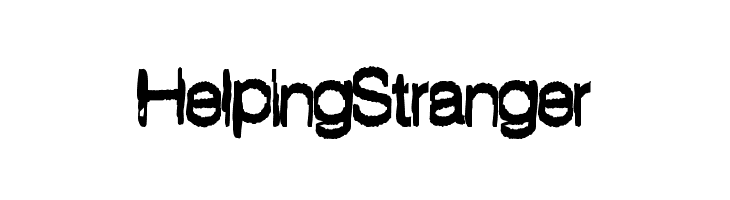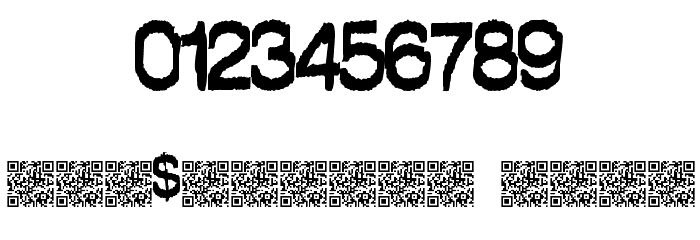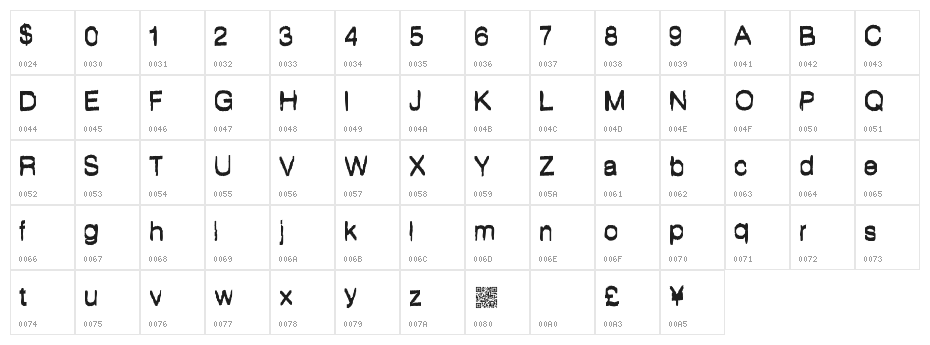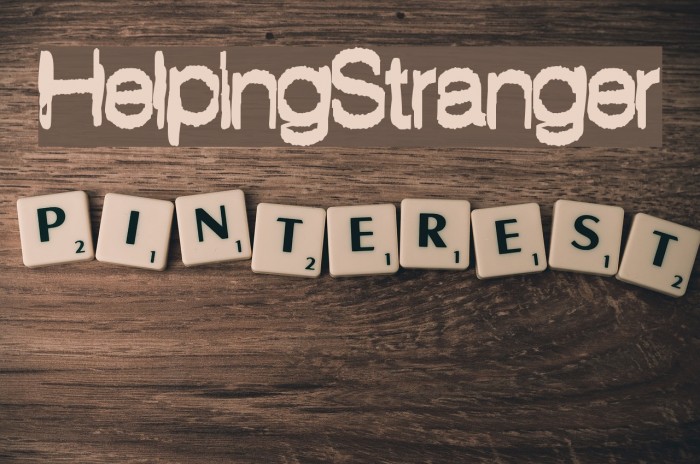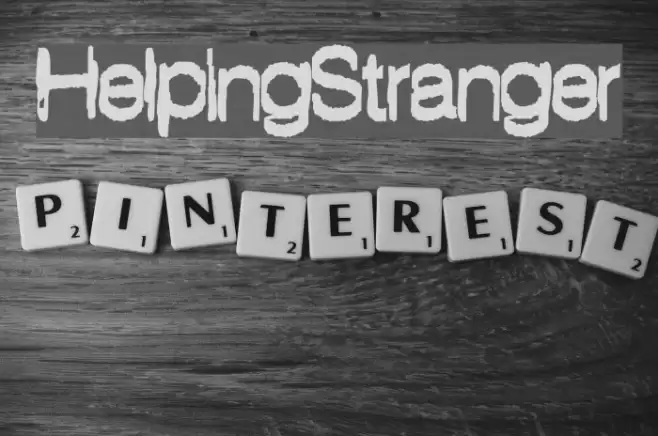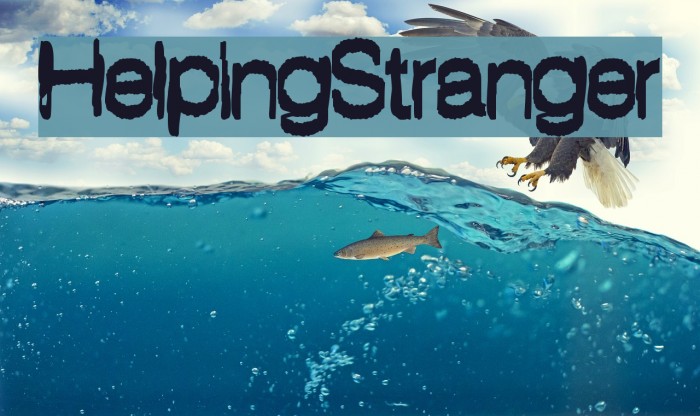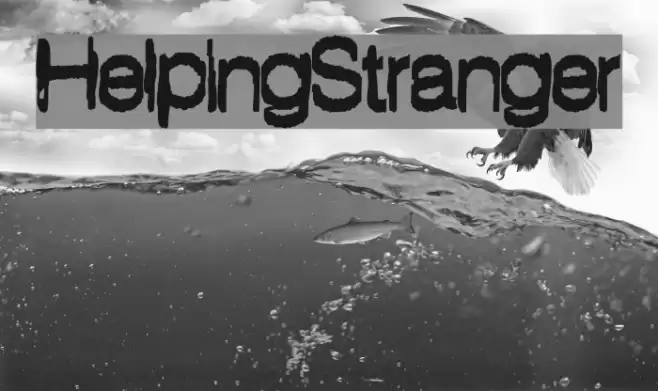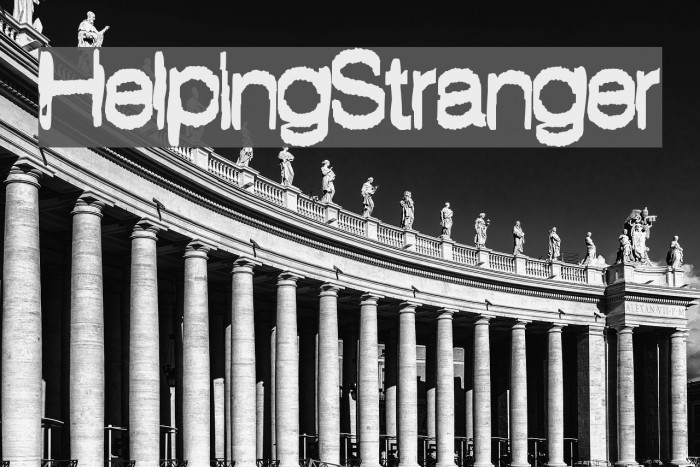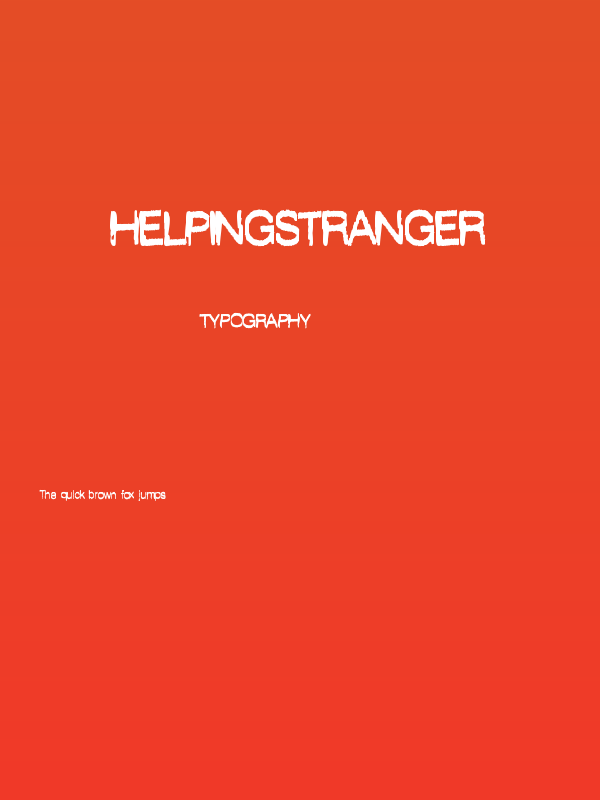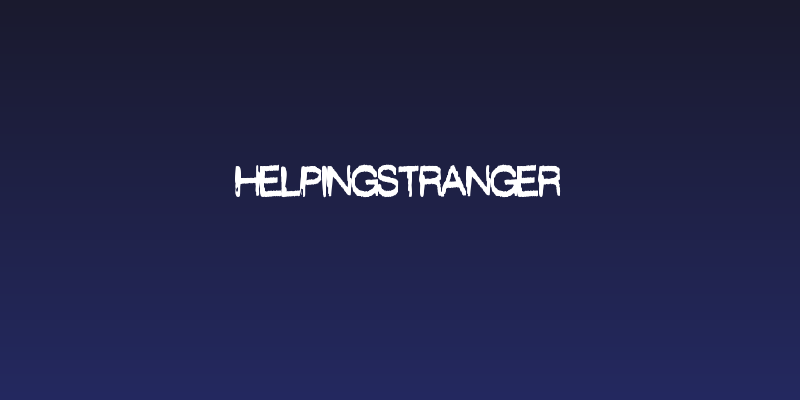
HelpingStranger Font
HelpingStranger Description
This font features a bold, hand-drawn style with a slightly rough texture, giving it a casual and artistic appearance. The uppercase and lowercase letters maintain a consistent height, while the numbers and special characters follow the same stylistic approach. The strokes are uneven, adding to the handcrafted feel, and the overall look is playful yet impactful. This font is well-suited for creative projects that require a personal touch, such as posters, invitations, and branding materials.
| Proposed Projects | Ideal for posters, invitations, branding, and creative projects needing a personal touch. |